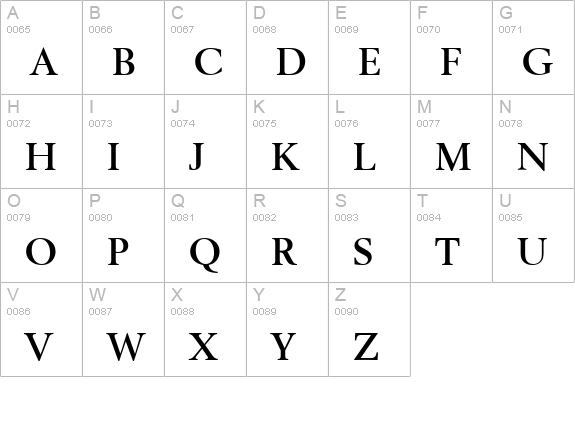
Bestseller-Bold is a strong, high-contrast variant in the Bestseller typeface family \xE2\x80\x94 well suited to headlines, attention-grabbing titles, and strong calls-to-action.
Bestseller-Bold is a dynamic and eye-catching font that exudes confidence and modernity. Its bold and striking appearance makes it perfect for headlines, titles, and branding materials that need to make a strong statement. With its clean lines and sleek design, Bestseller-Bold is sure to grab the attention of any audience. What makes Bestseller-Bold even more appealing is that it is freely available to download at FontsMarket.com. This means that you can easily access this stylish and impactful font for all your design needs without any cost. Whether you're working on a graphic design project, creating social media graphics, or designing a website, Bestseller-Bold is a versatile and reliable choice that will enhance your work and help you stand out from the crowd. Download Bestseller-Bold today and elevate your designs with this exceptional font.